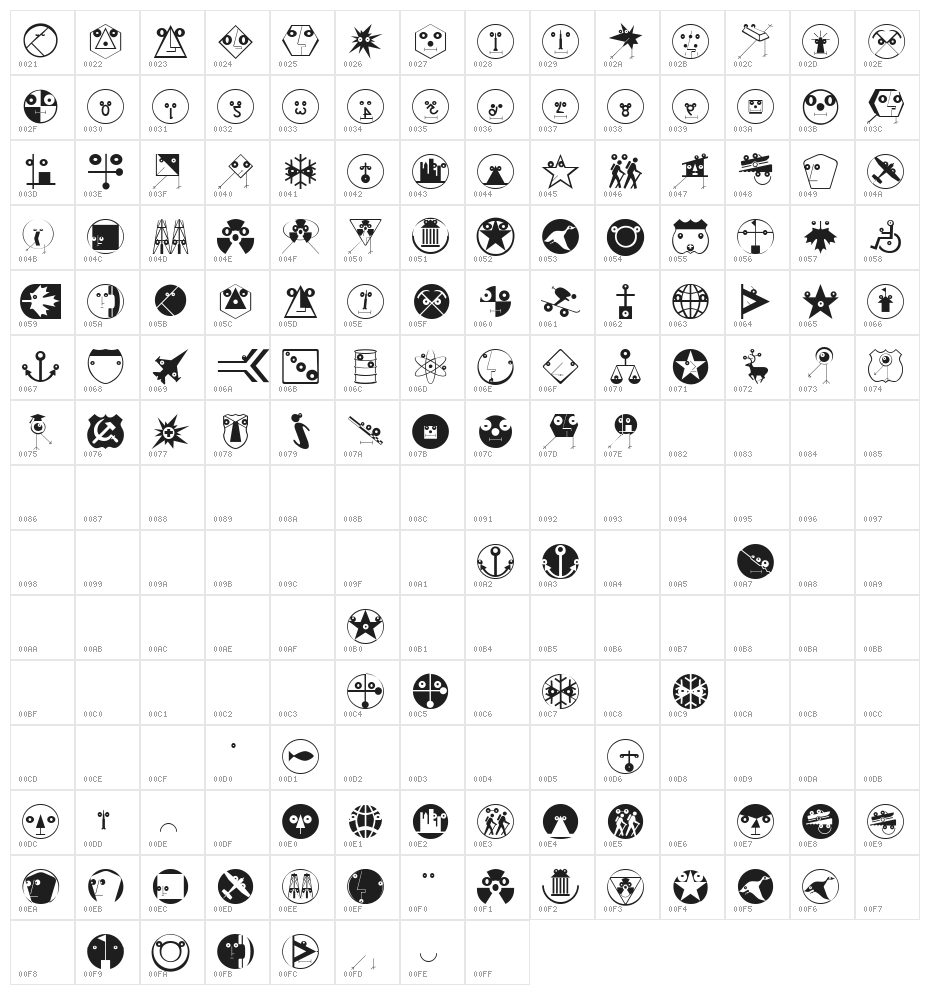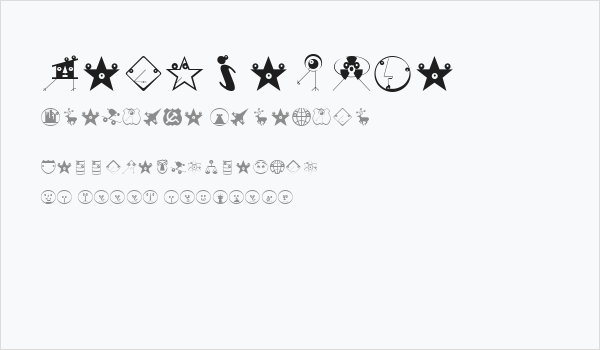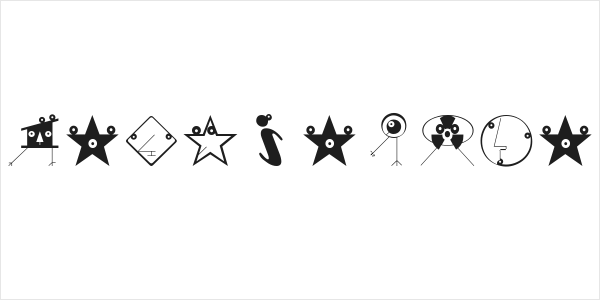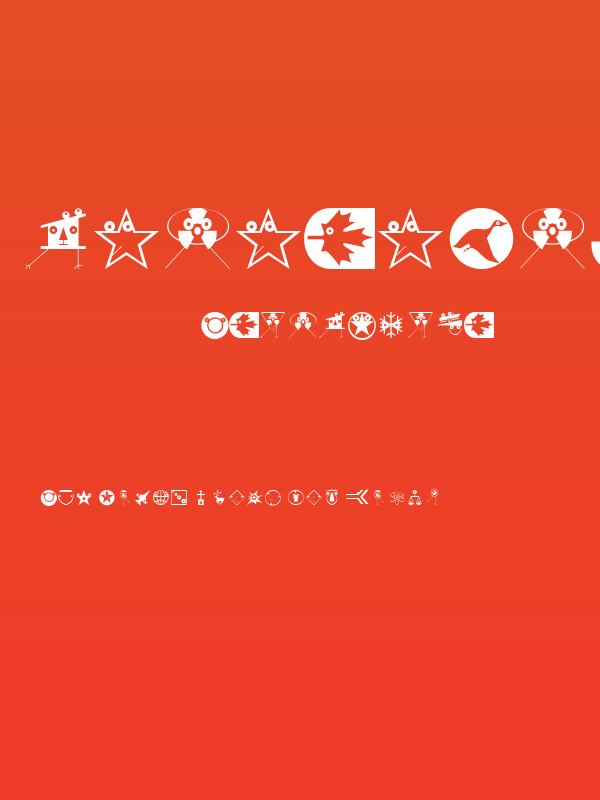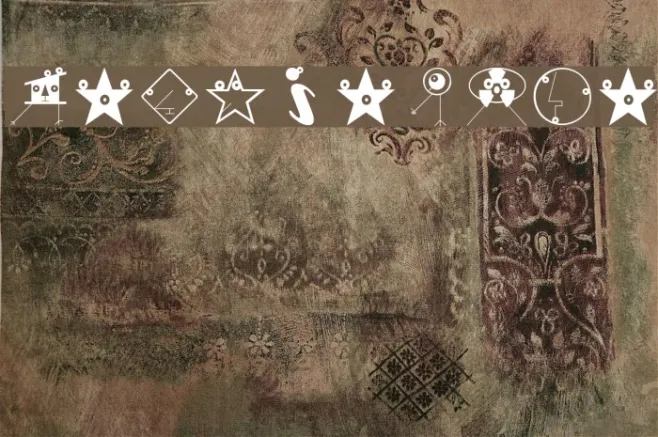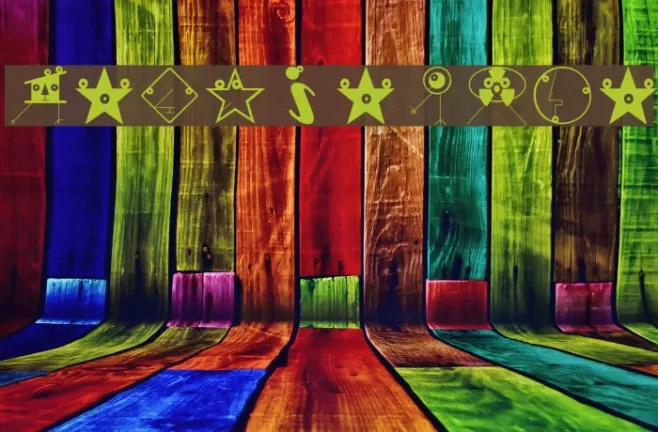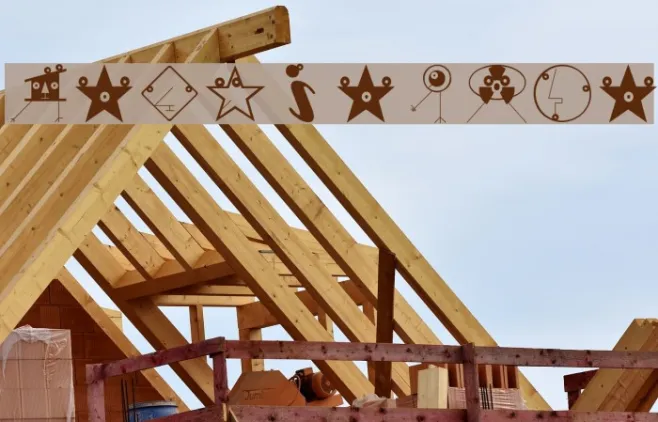
GeoEyesOne Font
GeoEyesOne Description
A highly decorative and playful display font composed of unique, abstract, and whimsical pictograms for each character, blending geometric shapes, faces, and symbols within circular or polygonal outlines. The glyphs are bold, mostly monoline, and visually dense, with a strong emphasis on iconography over traditional letterforms.
| Overall Style | Decorative, Playful, Abstract |
| Use Case | Logos, Posters, Headlines, Artistic projects |
| Proposed Projects | Children’s books, posters, party invitations, branding for creative agencies, educational materials, art installations. |